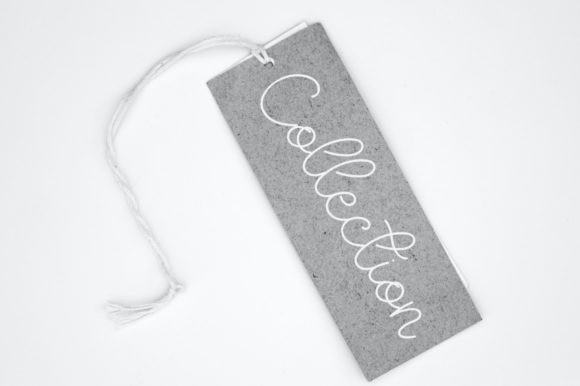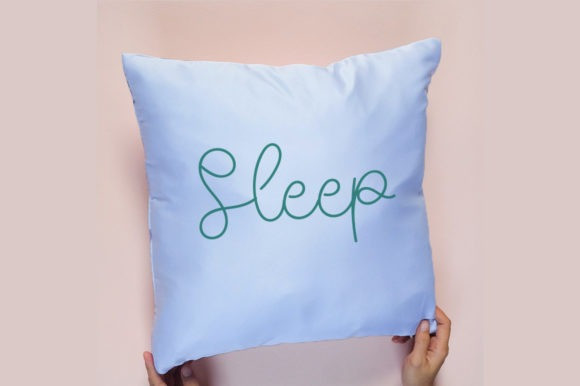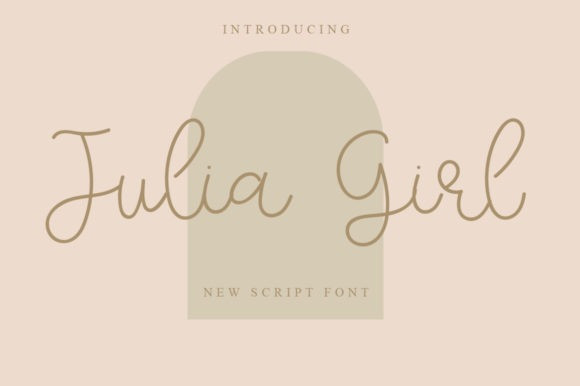
Julia Girl Font
Julia Girl Script Font is a beautiful and refined script font. It has a classy, elegant and modern look that can be used for logos, branding, invitations, stationery, wedding designs, social media posts, and much more!